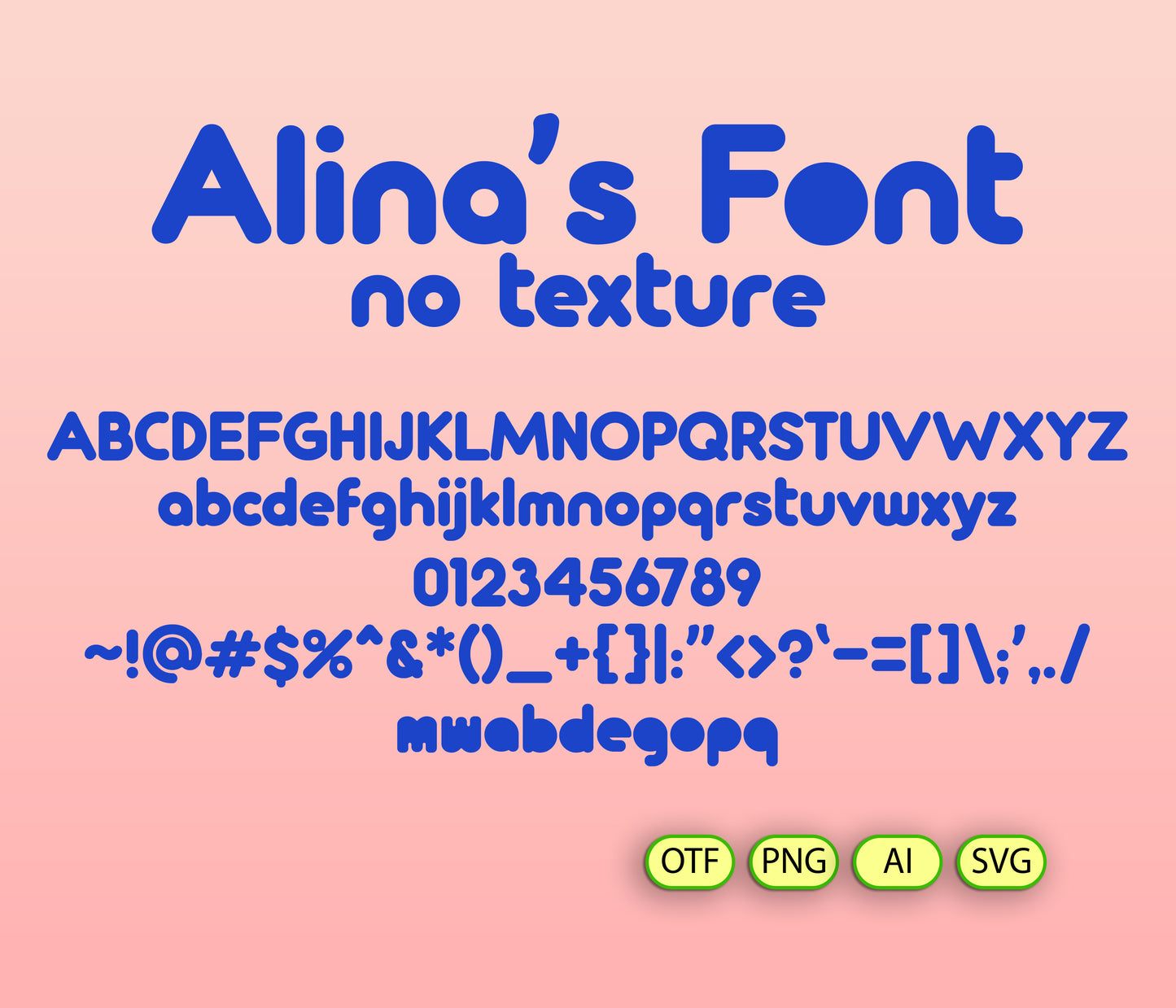
Tuneful Toddler Tales Font
Dive into the vibrant, musical world of animated youngsters and their catchy educational journeys with our specially designed Tuneful Toddler Tales font - No Texture edition. This clean, versatile typeface captures the essence of a wildly popular children's content series, without the added texture. Perfect for early childhood educators, parents, and content creators focusing on preschool-aged children who need a more adaptable font option.
What is the Tuneful Toddler Tales font?
Our No Texture font maintains the bright, bouncy aesthetic that characterizes the beloved animated series, but in a smooth, vector format. It features round, bubbly letterforms that appear to bounce and sway, as if moving to the beat of a children's song. Each character radiates playfulness and clarity, ideal for projects that require a clean, scalable typeface while still maintaining the cheerful spirit of the original.
What You Can Do With Tuneful Toddler Tales Font
- Clean, Scalable Design: Vector-based font that maintains quality at any size.
- Comprehensive Character Set: Offers a wide range of characters, including musical note alternatives and child-friendly symbols.